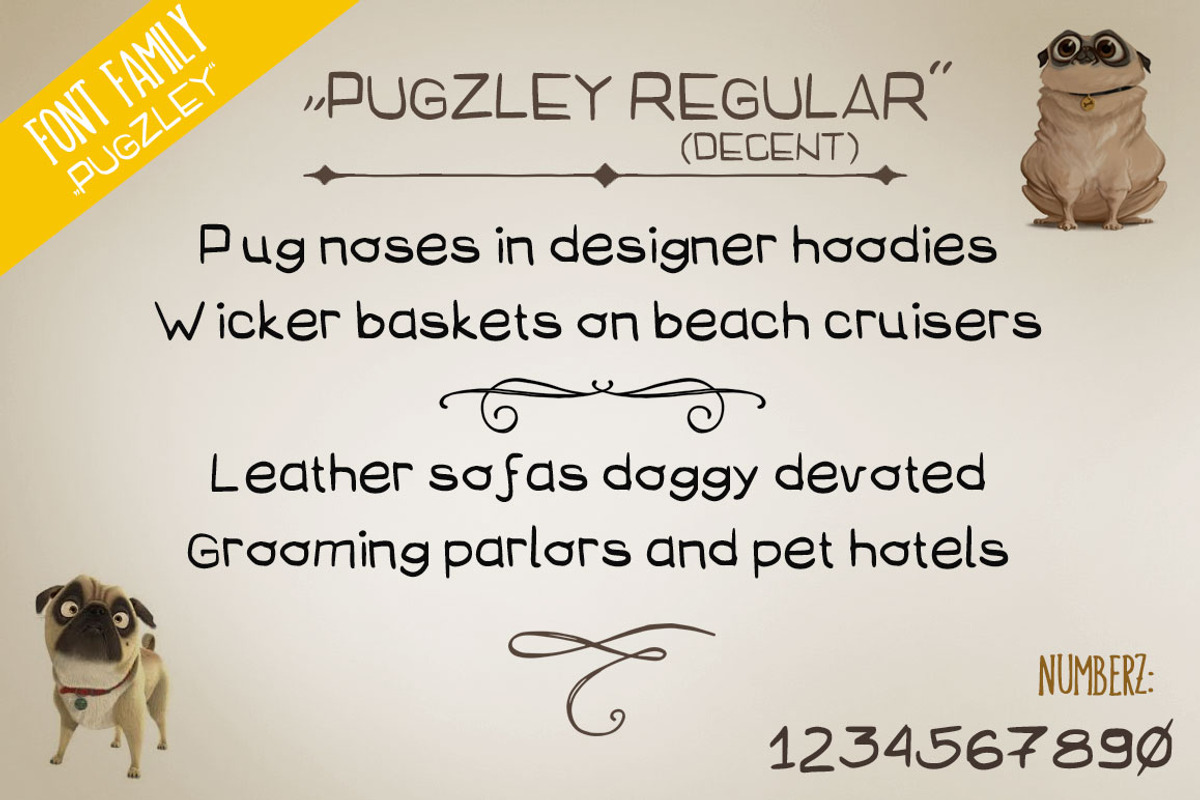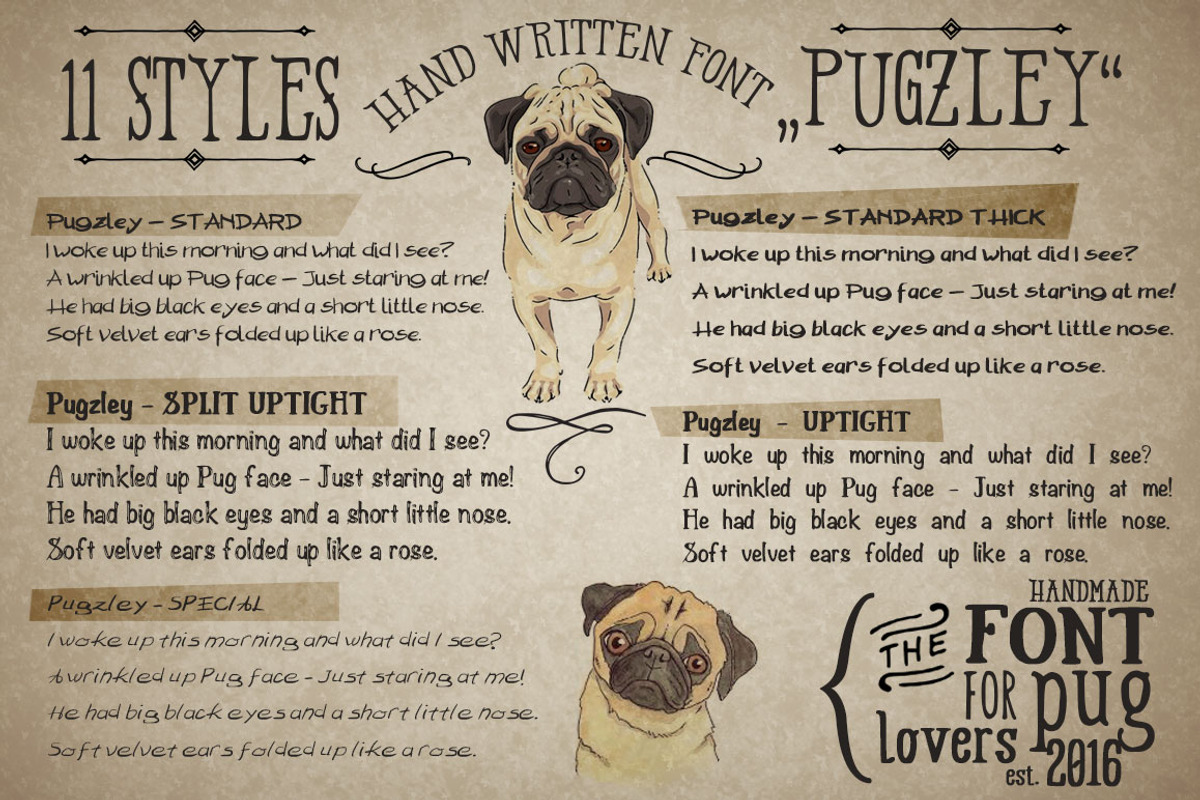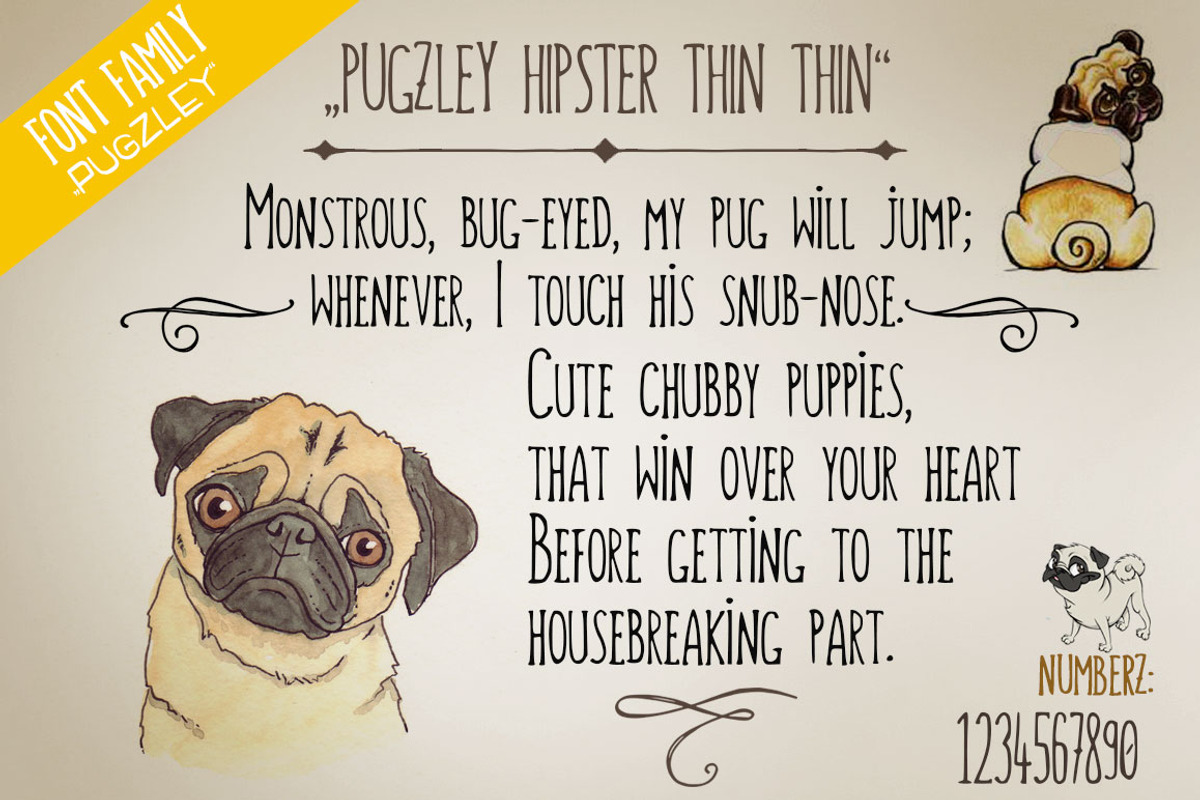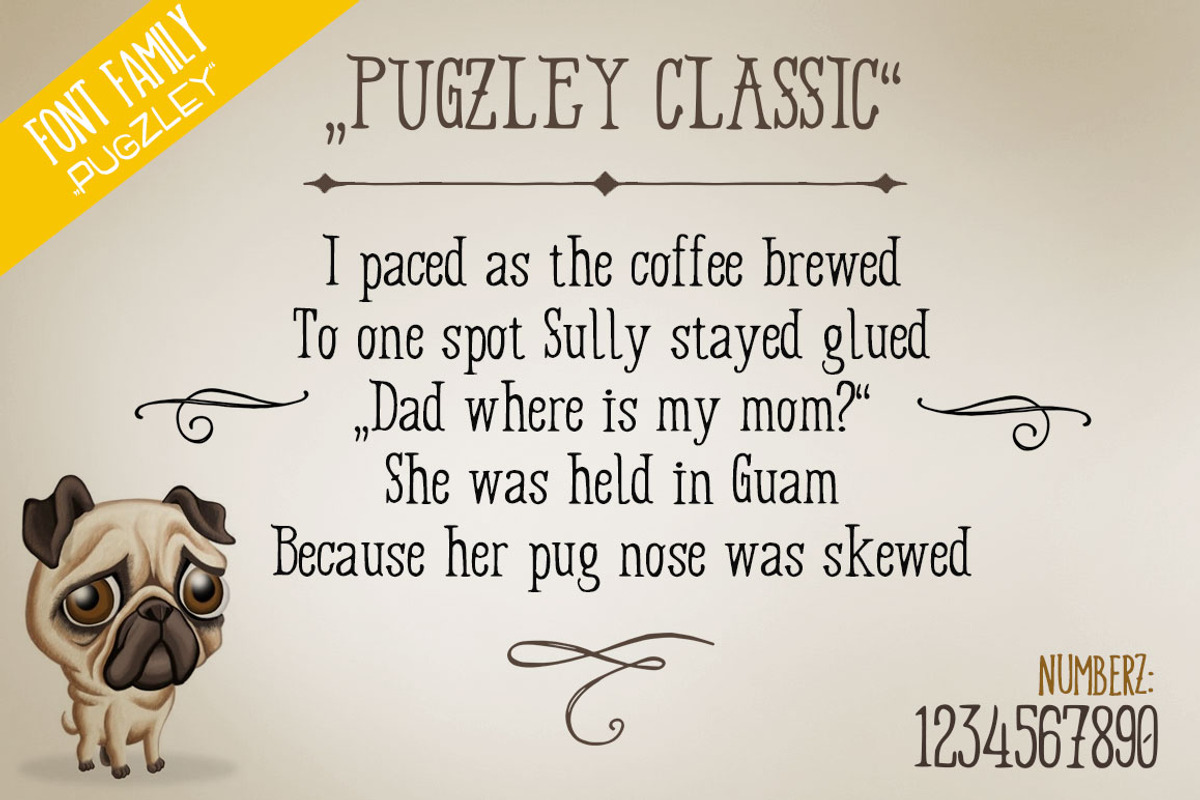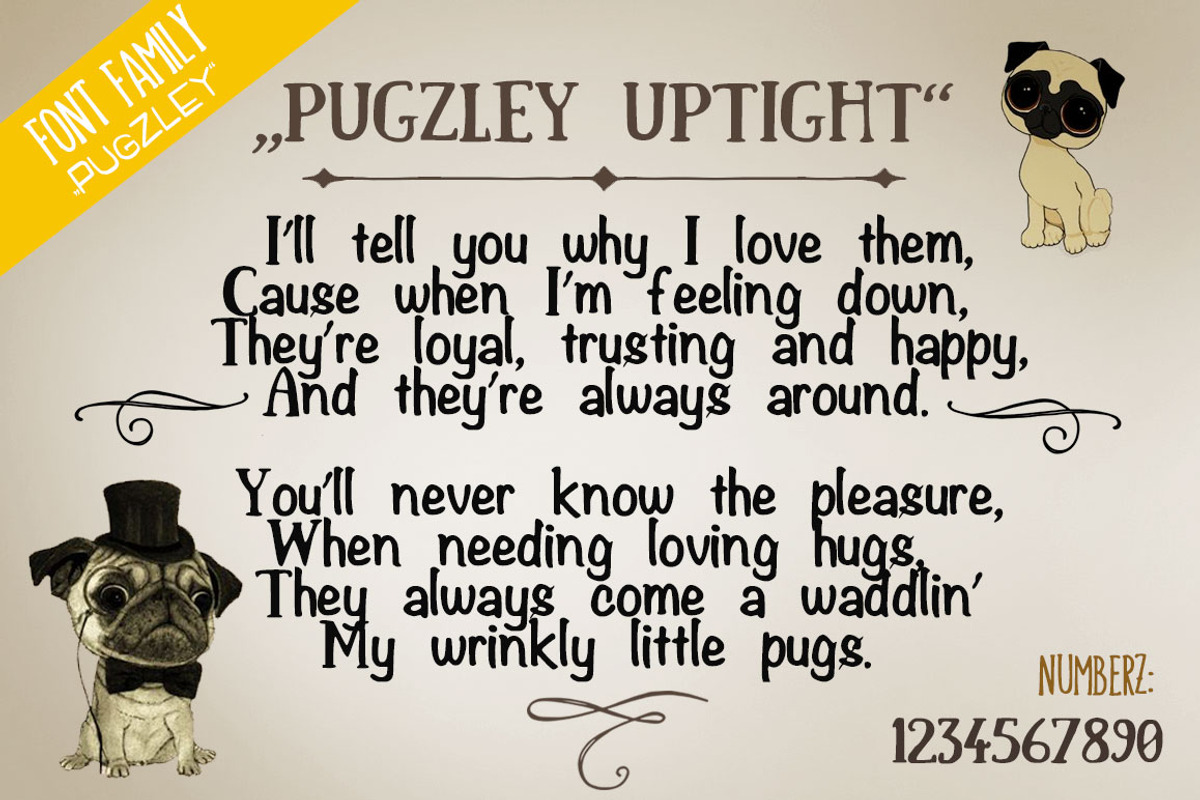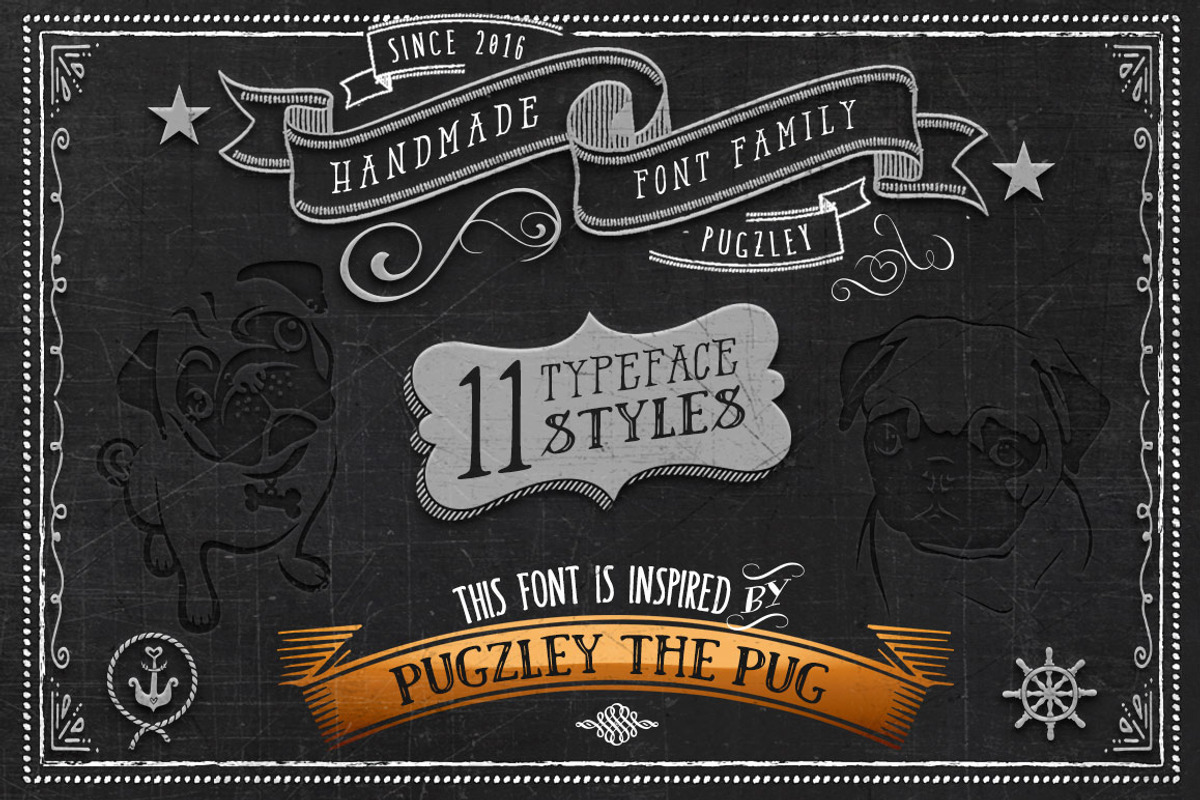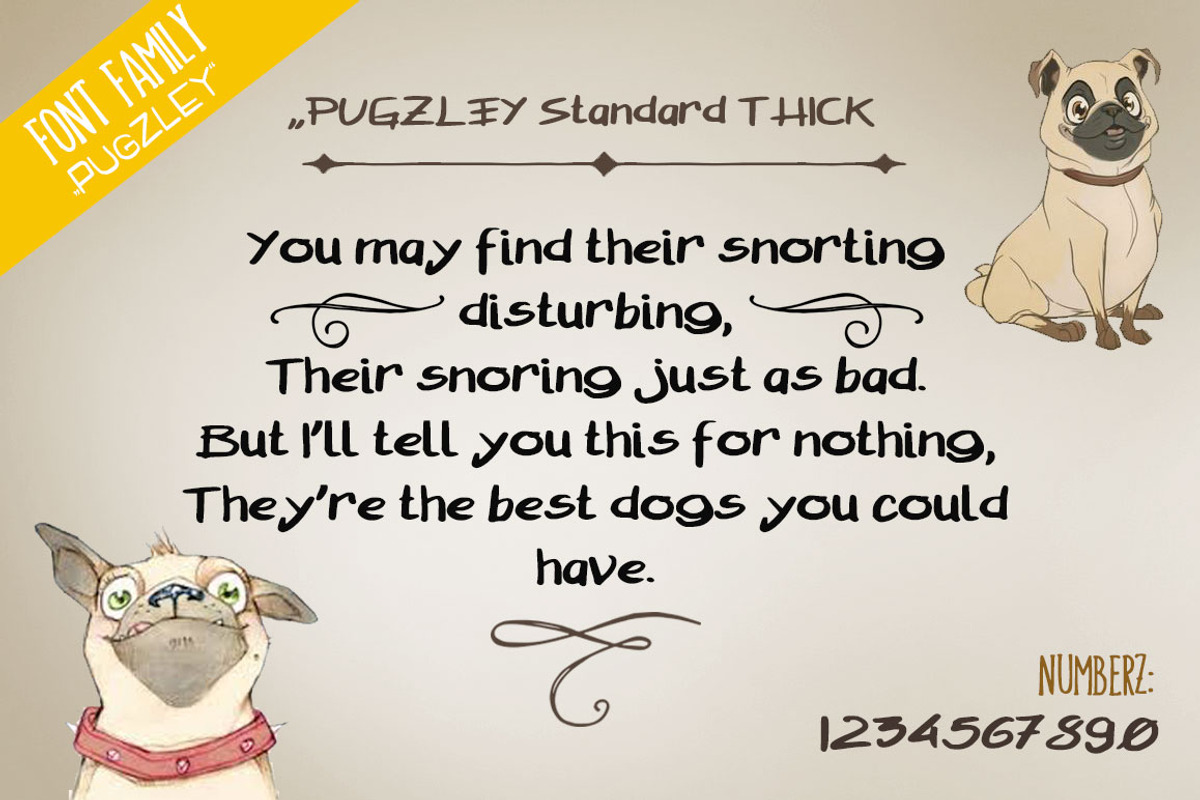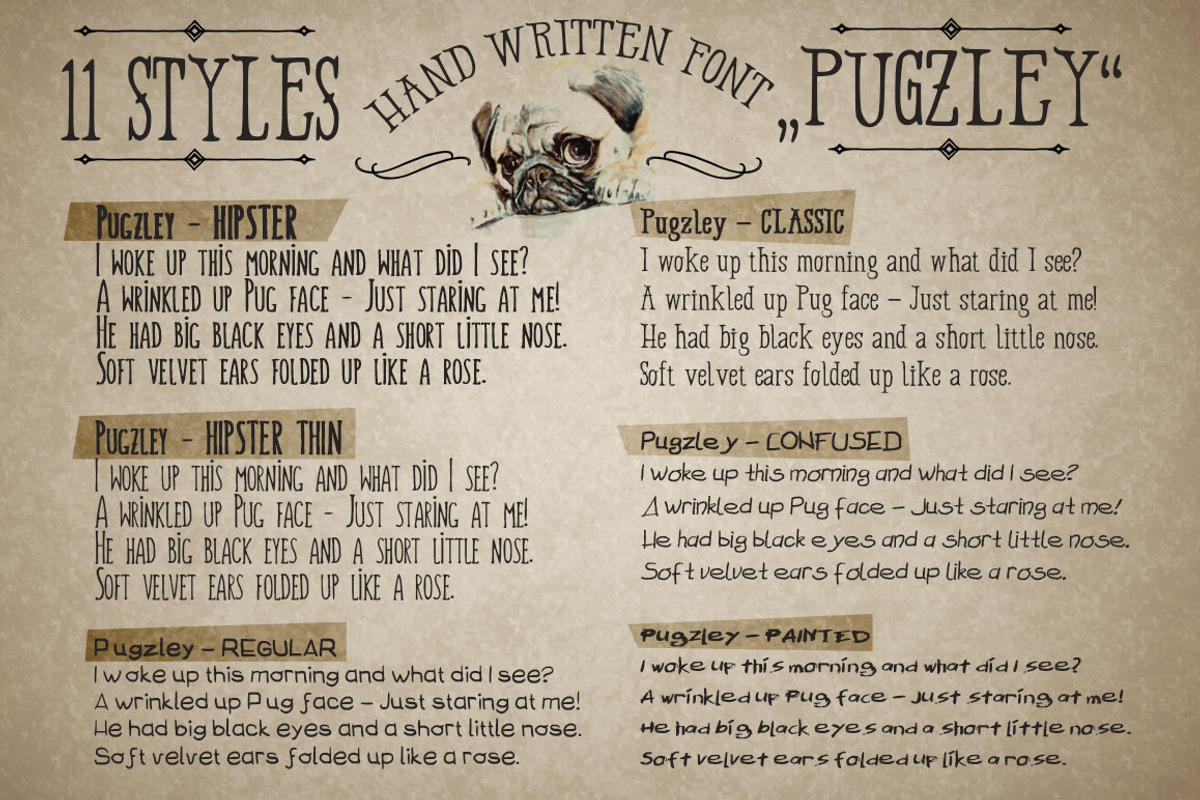
11 Handmade Font Family "Pugzley"
11 Handmade Font Family "Pugzley" by the little wonder shop is a font selected for branding, posters, packaging, typography.
- Pugzley HipsterThin
- Pugzley Regular
- Pugzley Standard
- Pugzley StandardThick
- Pugzley Classic
- Pugzley Confused
- Pugzley Hipster
- Pugzley Painted
- Pugzley Special
- Pugzley SplitUptight
11 Handmade Font Family "Pugzley" by the little wonder shop fits naturally into Branding, posters, packaging, typography.